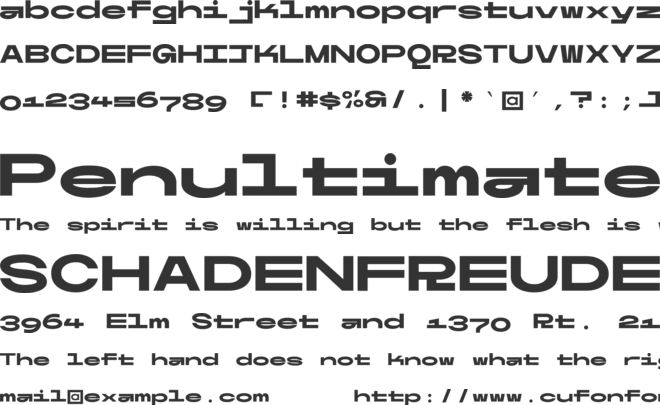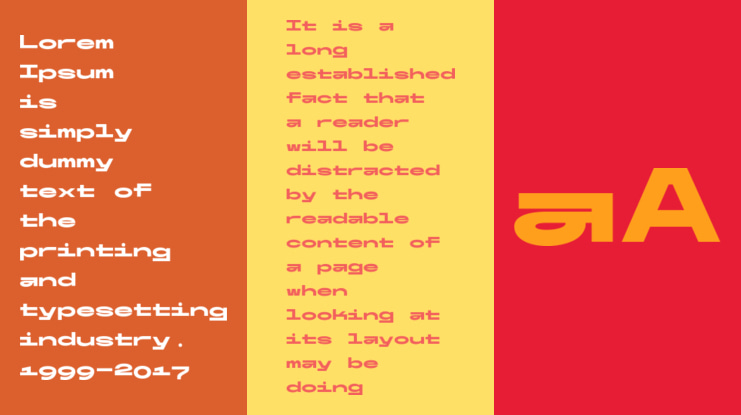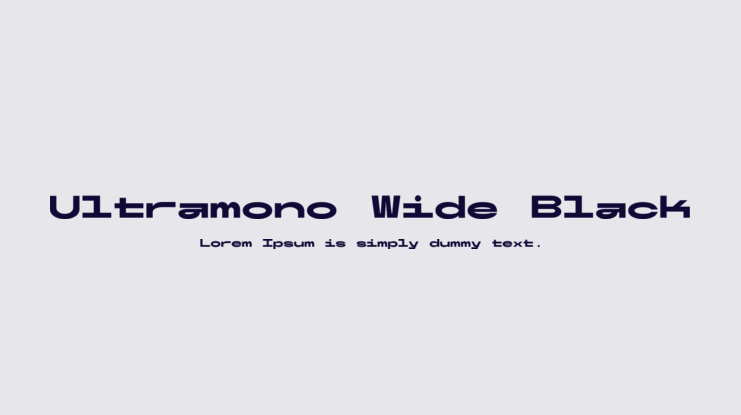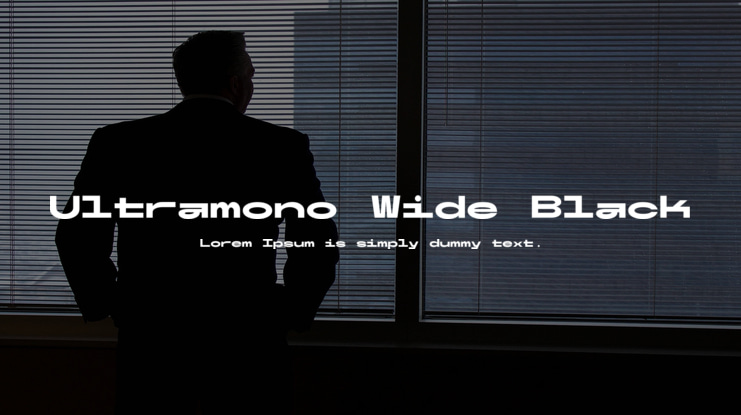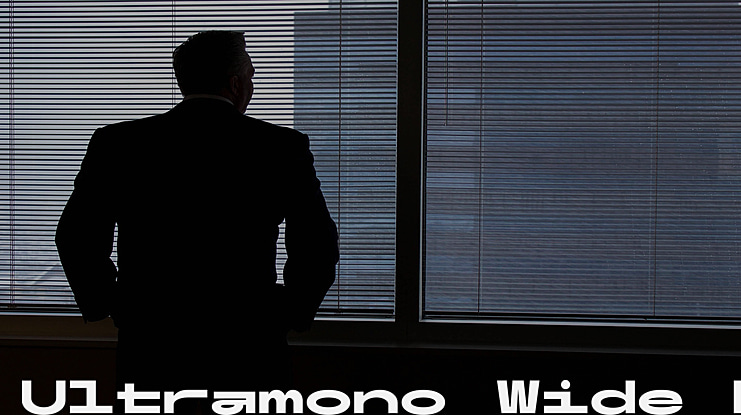
Ultramono Wide Black Font Family
This is a geometric sans serif typeface inspired by city life and sport. Each letter is carefully designed to grab the viewers’ attention and make the design stands out. “Ultramono” is perfect for posters, logos, headings, titles, etc. Lighter weights can also be used for small blocks of text, although some adjustments might be needed for legibility improvement.
The whole family consists of a whopping 14 styles, with 7 weights ranging from Light to Black and their italic companions. 8 of which are entirely free for personal and commercial uses. Each font contains 480 glyphs, including Latin and Cyrillic.